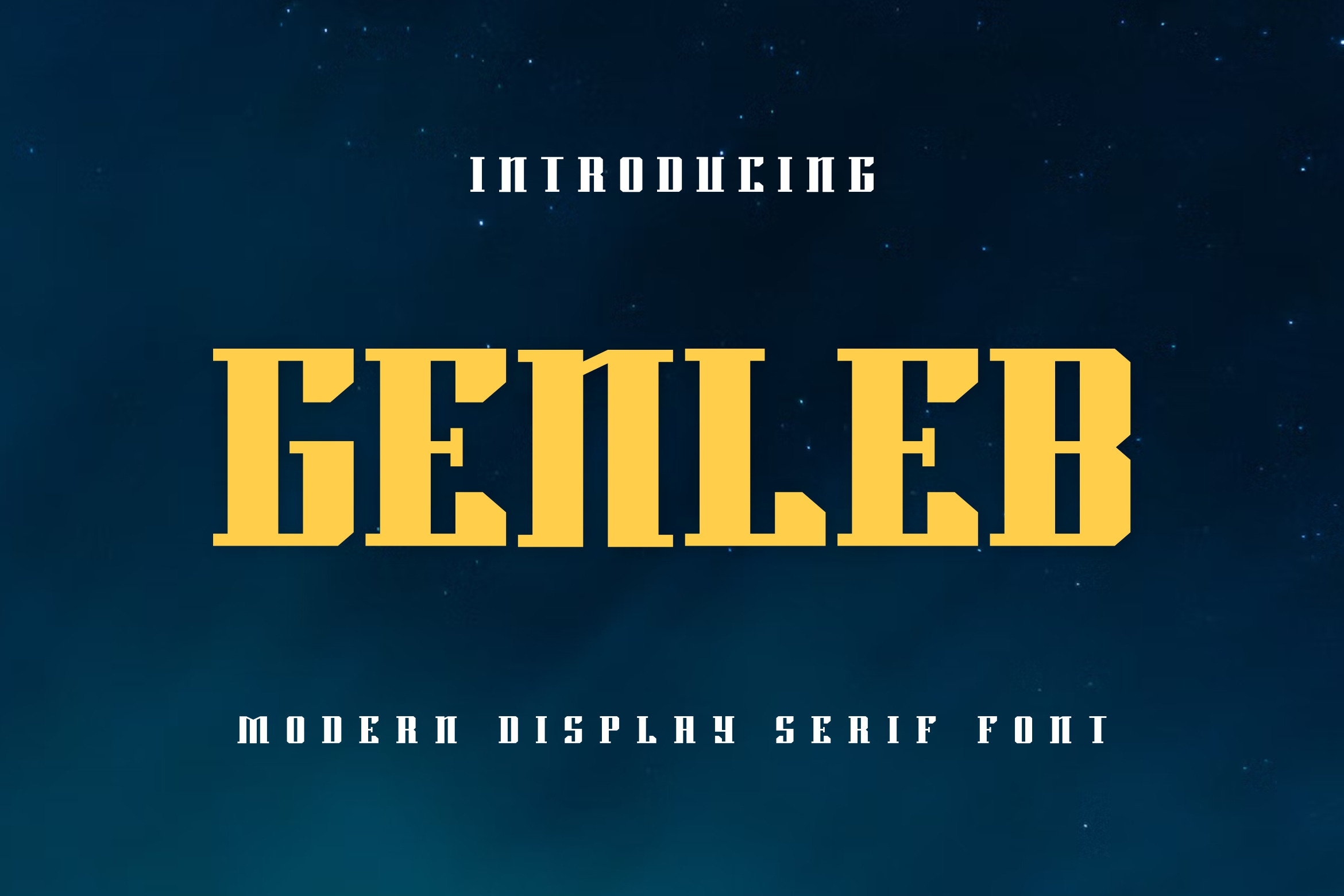
Genleb Modern Font
Introducing our new product Genleb - Modern Font
Genleb is a bold, modern display font with playful flair, ideal for attention-grabbing headlines, logos, and diverse design projects. Versatile and readable in both digital and print, Genleb adds a dynamic touch to your message.